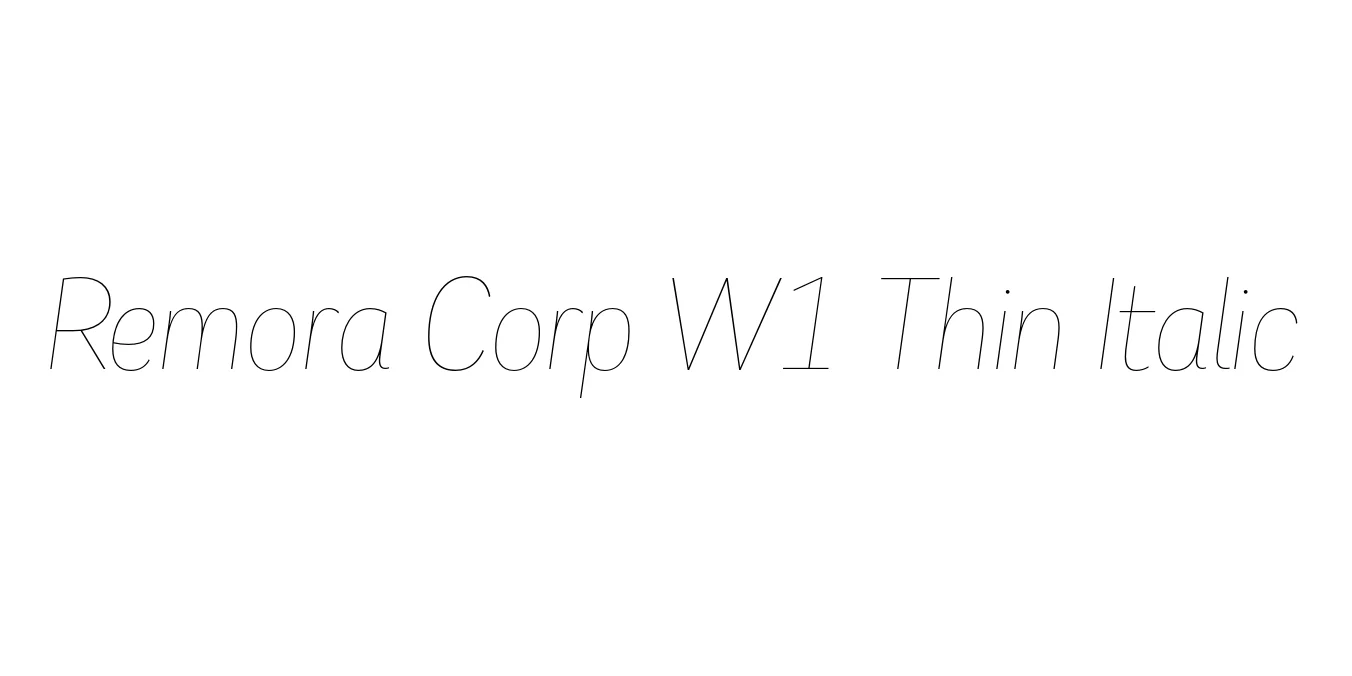
Remora Corp W1 Thin Italic
Designed by Nick Cooke
| Font Name | Remora Corp W1 Thin |
| Designer | Nick Cooke |
Remora Corp W1 Thin Italic is a sophisticated component of the extensive Remora superfamily, crafted by renowned designer Nick Cooke of G-Type. As part of the 'Corp' (Corporate) series, this typeface was specifically engineered to provide a more structured and business-oriented aesthetic compared to its more humanist counterpart, Remora Sans. The W1 width classification represents the standard narrow profile of the family, offering a streamlined verticality that excels in modern layout designs where space efficiency is paramount.
The Thin Italic weight is characterized by its delicate, hair-line strokes and a graceful slant that adds a sense of urgency and elegance to any text. This style is particularly effective in high-end editorial contexts and luxury branding, where its minimalist geometry and precise terminals convey a sense of contemporary professionalism. It serves as a versatile tool for designers looking to blend technical precision with a high-fashion, typographic flair.
Remora Corp W1 Thin Italic Best Uses
Perfect for creating sleek, professional logos and high-end corporate stationery.
Excellent for sophisticated subheadings and emphasized pull-quotes in fashion or architecture magazines.
Ideal for minimalist product packaging that requires a touch of refined elegance.
Best used for clean, modern hero text and navigational elements on professional service websites.